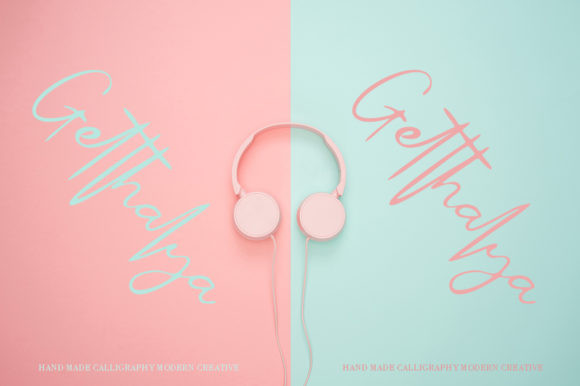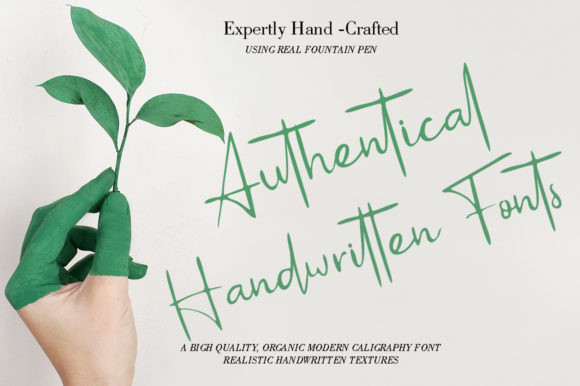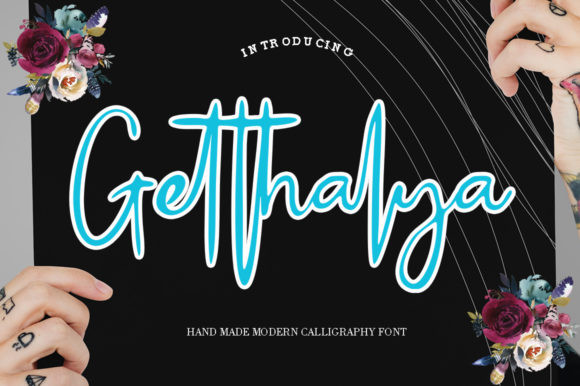
Getthalya Font
Getthalya is a stunning script with smooth letters and charming swashes. It’s a perfectly authentic font, ideal for a big range of creative ideas!